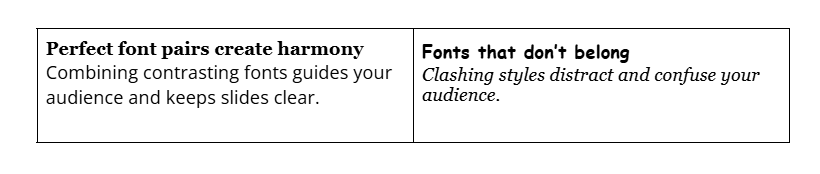
How to Choose the Best Fonts for Presentations
The best font for your presentation is one that’s easy to read, reinforces your message, and suits the context of your topic. Whether you’re designing slides in PowerPoint, Google Slides, or another platform, typography—like color, layout, and other design elements—shapes how audiences absorb and interpret information.
In this guide, you’ll learn how different font types work, which fonts are most effective for presentations, and how to choose and combine them to create clear, engaging slides.
How to choose the best font for your presentation
Before comparing individual typefaces, it’s helpful to understand what makes a presentation font effective. A good choice does more than look appealing—it supports your message and helps your audience stay focused.
- Readability comes first. Choose fonts that are easy to read at a glance. Look for letters that feel clear, not cramped, and make sure there’s enough space between them so words don’t blur together from a distance
- Let the font match the message. Each font has a distinct “personality.” A simple, modern style works well for data-driven or technical topics, while a more traditional look can suit academic or formal presentations. Your font should quietly support the atmosphere you’re trying to create.
- Consider the context. Think about the room, the screen, and the audience. A font that looks crisp on your laptop may feel too thin on a projector, and a style that works for a creative workshop might feel out of place in a corporate boardroom.
- Avoid unnecessary distractions. Fancy, decorative fonts may look interesting up close, but they can make slides hard to read. Use them sparingly—if at all—and only for elements like headers or brief emphasis.
Types of fonts
Fonts fall into several broad categories, each with its own look, personality, and ideal uses.
Serif fonts
A serif is the small stroke or “foot” at the ends of letters. These subtle details give serif fonts a more traditional, bookish feel—the kind often associated with credibility and long-form reading.
| Best for | Formal presentations, printed materials, and headlines |
| Examples | Times New Roman, Georgia, Garamond, Baskerville |
Sans-serif fonts
Sans-serif fonts skip the decorative strokes, giving them a clean, streamlined look. They’re widely used in digital environments because their simple shapes hold up well across screens and sizes.
| Best for | Digital presentations, tech or data-heavy topics, and minimalist designs |
| Examples | Helvetica, Arial, Calibri, Verdana, Comic Sans |
Below are some well-known serif and sans-serif fonts:
Script fonts
Script fonts imitate handwriting or calligraphy, often featuring flowing, connected letters that resemble the natural flow of handwriting.
| Best for | Titles, quotes, or creative presentations needing a personal touch |
| Examples | Brush Script, Lucida Handwriting, Pacifico |
Decorative fonts
Decorative, or display fonts, have distinctive, stylized designs meant to stand out and grab attention.
| Best for | Single-word titles or creative, informal contexts |
| Examples | Bauhaus, Ellington, Stencil |
Custom fonts
Custom fonts are unique typefaces created or licensed specifically for a brand or organization.
| Best for | Branded presentations and maintaining corporate identity |
| Examples | Netflix Sans, Airbnb Cereal |
Which font is best for presentations?
Serif and sans-serif fonts like Times New Roman, Georgia, and Helvetica are standard web fonts—they’re built into nearly every computer and browser, so they display consistently no matter where your presentation is shown.
Script, decorative, and custom fonts are specialty typefaces that most systems don’t have installed by default. When you use these fonts in a presentation, they may not display correctly on other computers unless you embed them (include the font files with your presentation) or use web-based versions.
This is why serif and sans-serif fonts are the safest choices—they’re guaranteed to look the same for everyone in your audience.
If you love a specialty font, consider using it only for titles or key emphasis, and always have a fallback font ready in case it doesn’t display properly.
Top 10 fonts for presentations
With so many fonts available, it can be tricky to pick the one that will best support your message and engage your audience. To help you narrow down your choices, here are some of the most effective fonts for presentations—each selected for its readability, style, and versatility. Below, you’ll find what makes each font work well, along with the settings and presentation types where it performs best.
Both can work, but sans-serif fonts are usually the safer choice for presentations. Their clean, simple shapes stay crisp on screens and projectors, making them easier to read from a distance. Serif fonts can still be effective for titles or more formal topics, but thin serifs may disappear on low-resolution displays.